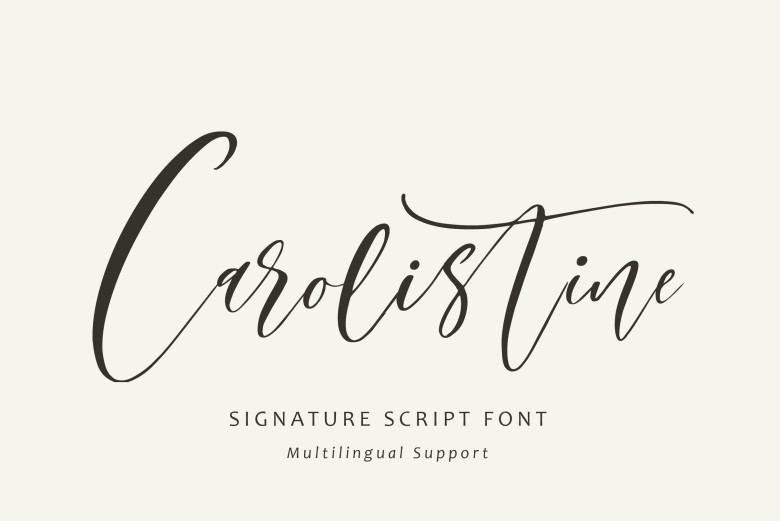
Carolistine Font
Introducing the beautiful elegant Carolistine Script font! Carolistine is delicate and loose-serif, with each letter’s balance is perfectly crafted in the design. Carolistine Script feels playful, classy, design, and luxury, which includes a complete set of such features as uppercase and lowercase letters, numerals, symbols, punctuation, alternates, and additional swash to support it.
Make your designs more sophisticated, suitable with Carolistine, such as logos, branding, editor, poster, social media posts, advertisement, and any sophisticated design requirements.. PUA encoded that means all its displacements are easily accessible-Author’s study for this.
Carolistine Handwritten Script Font